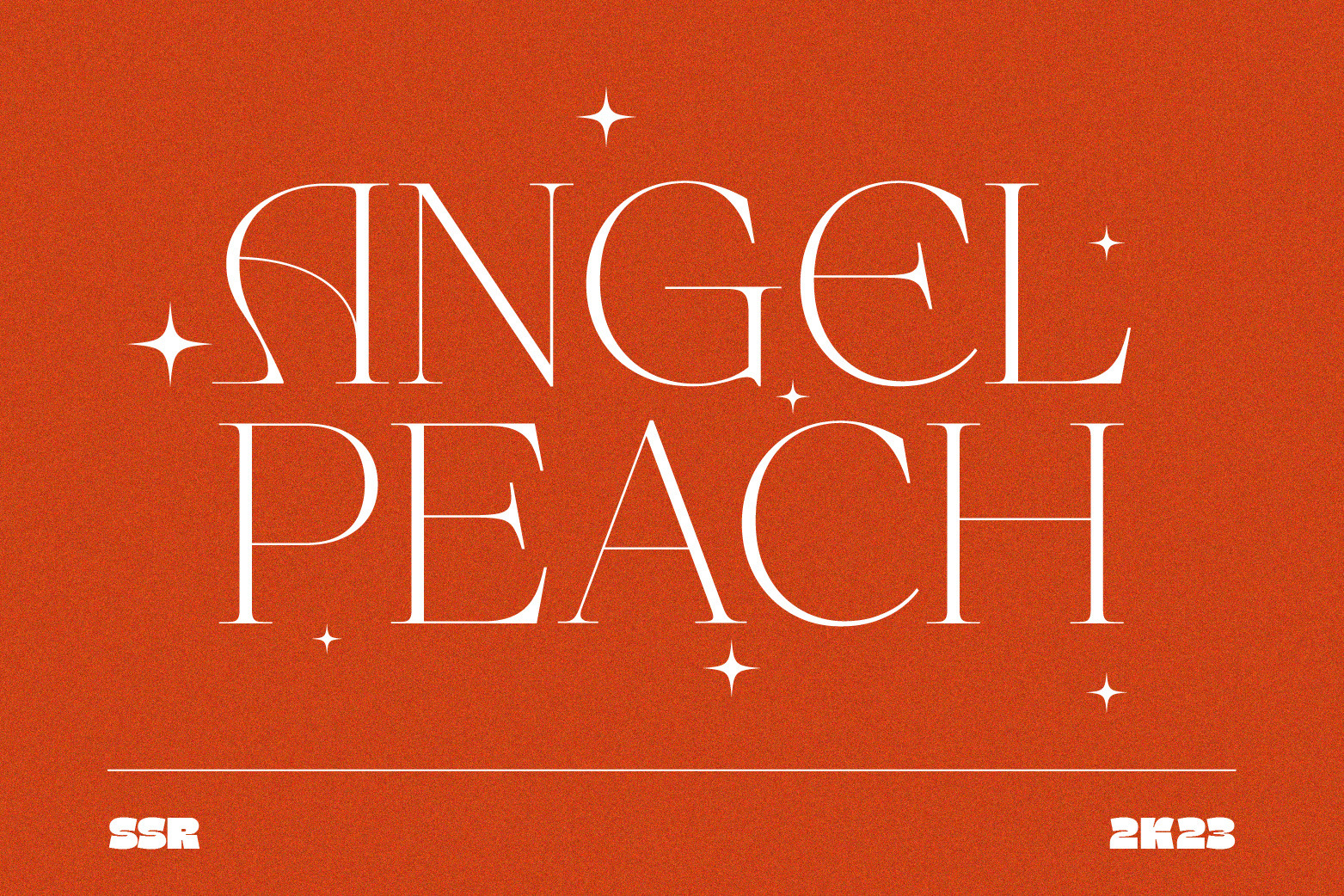
SS Angel Peach - Fancy Serif Font
Angel Peach is a fancy and classy serif font with a touch of elegance and charm. It is perfect for your up coming projects. Such as luxury logo and branding, classy editorial design, woman magazine, cosmetic brand, fashion promotional, art gallery branding, museum, historical of architectural, boutique branding, stationery design, blog design, modern advertising design, card invitation, art quote, home decor, book/cover title, special events and any more.